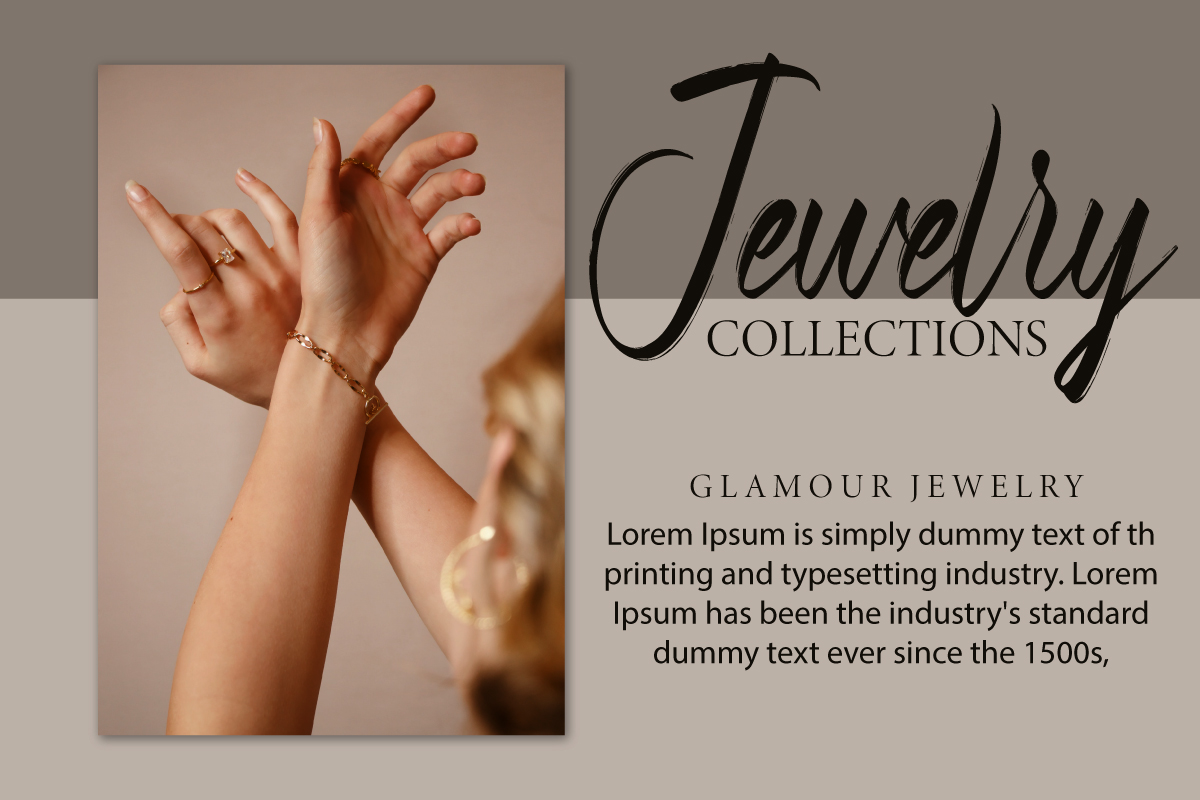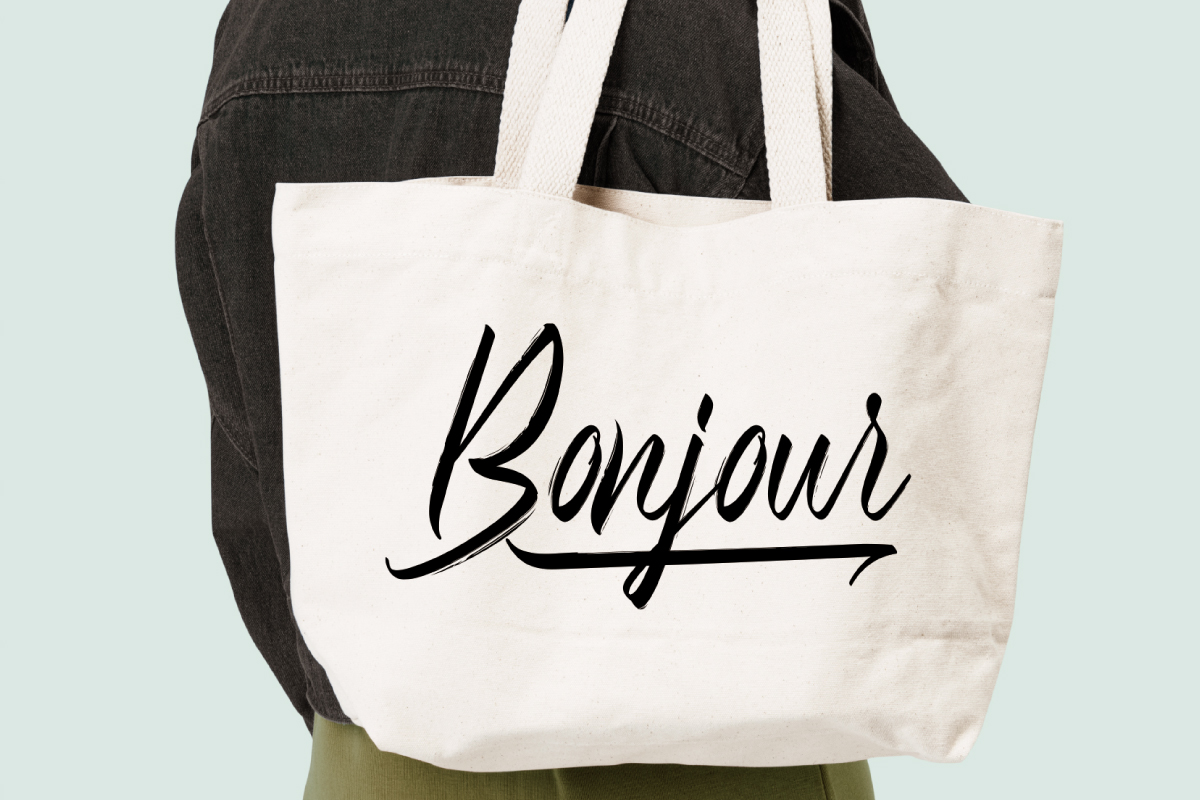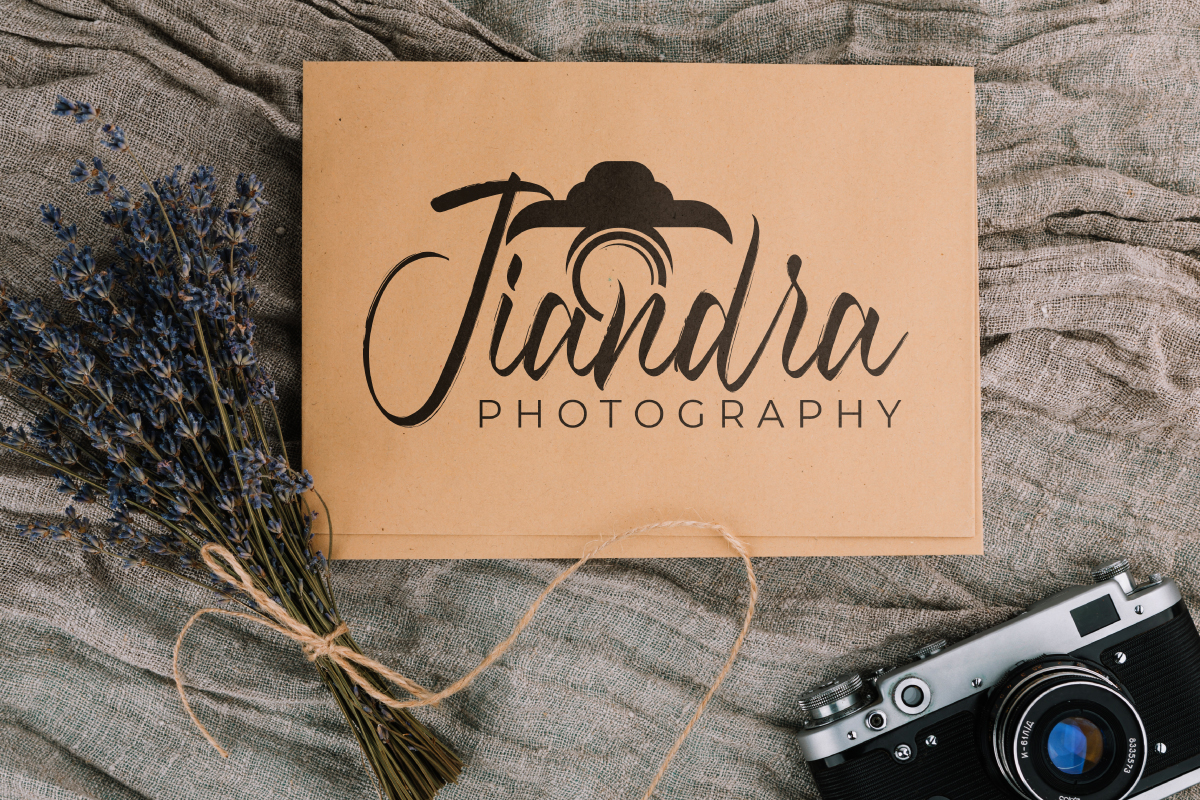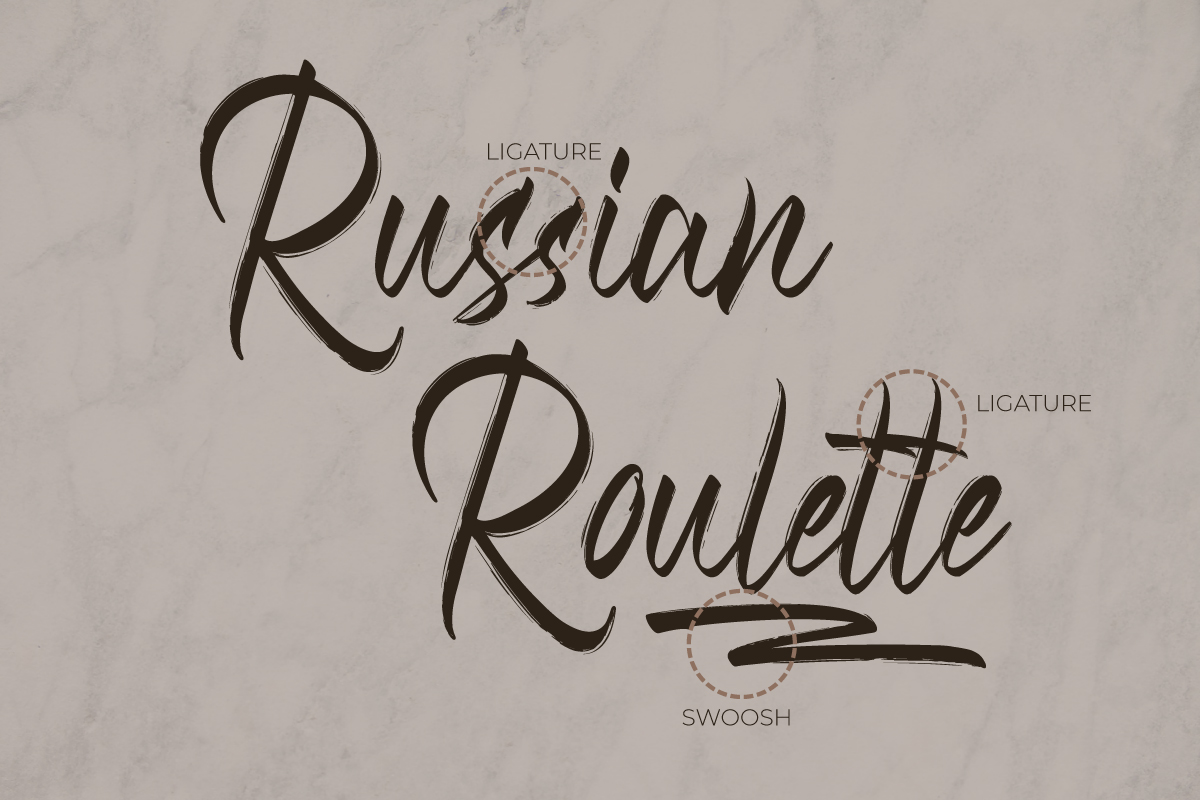
South Edge Font
South Edge Brush Font
This is a brush script font, handwritten script style font with amazing use of texture brush effect. This font is crafted carefully in every its single letter so it is meant to emulate natural brush lettering with perfect for head-turning statements and eye-catching look!
South Edge Font includes full set of Uppercase and Lowercase Basic Characters, Numerals and Punctuation. Also it contains ligatures to make it flowless set font characters to perfectly make awesome look that add more aesthetic to perfect your extraordinary project.